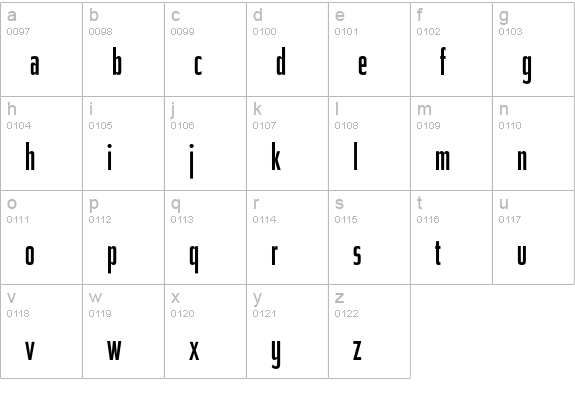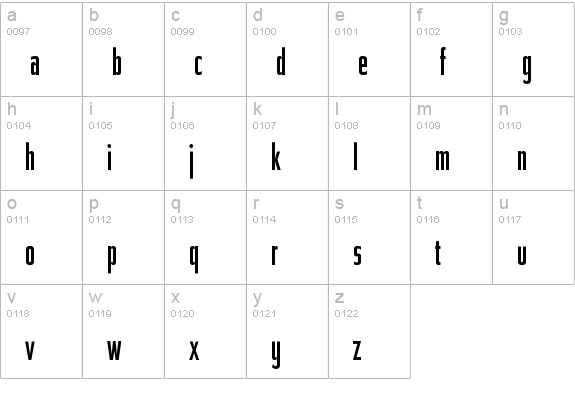
Tasse-RegularCondensed font is a sleek and elegant typeface that exudes sophistication and modernity. With its condensed letterforms, it is perfect for creating a stylish and space-saving design. The clean lines and well-balanced proportions of this font make it versatile and suitable for various design purposes. Whether you are designing a logo, a website, or a print advertisement, Tasse-RegularCondensed font will add a touch of refinement to your project. Its legibility and readability ensure that your message will be conveyed effectively to your audience. One of the best features of Tasse-RegularCondensed font is that it is free. Yes, you read that right! This high-quality font is freely available to download at FontsMarket.com. You can use it for personal and commercial projects without any restrictions. This is a great opportunity to enhance your designs without breaking the bank. So, why wait? Head over to FontsMarket.com and download Tasse-RegularCondensed font today. Elevate your design game with this elegant and free typeface.